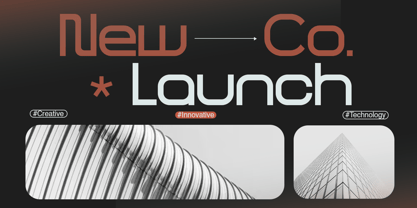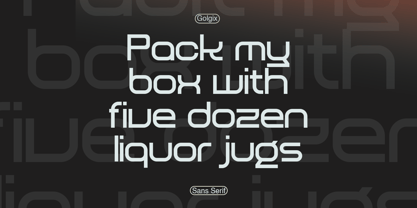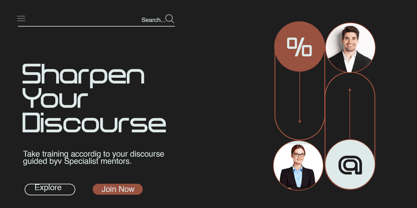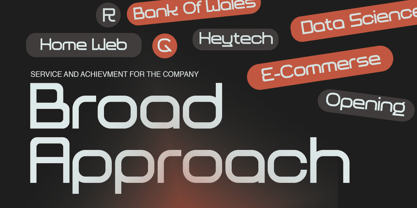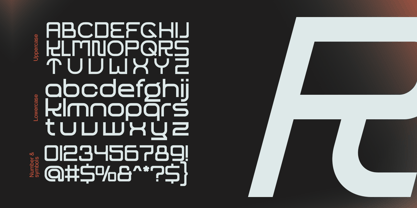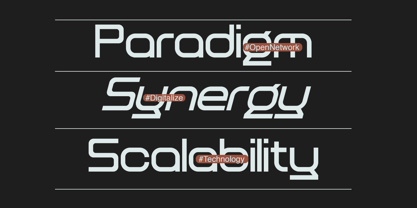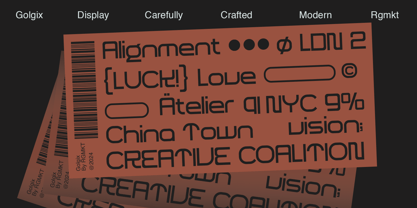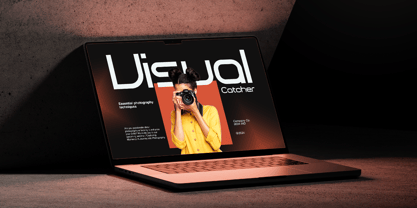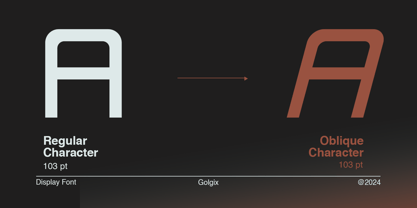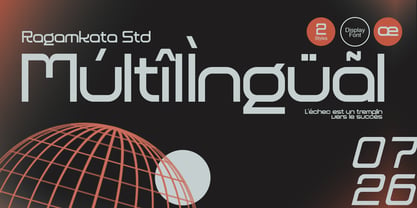
Golgix
by RagamKata
The Golgix Font Family was designed by Yogiswhara Dio Prakoso Riadi and published by RagamKata. Golgix contains 2 styles and family package options.
The image showcases a promotional graphic for a font named "Golqix," described as a "Modern Corporate Font." The design features the font name prominently in a futuristic and sleek style, with the text "Modern Corporate Font" below it. In the bottom left corner, there is a tagline that reads, "Join the digital revolution and reimagine your designs with our futuristic aesthetic." The background is a gradient of dark colors with a hint of red-orange at the edges, giving it a modern and dynamic feel. Golqix is suitable for: branding, web design, tech projects, print materials, sci-fi designs, marketing, UI design.
- Golgix Regular
- Golgix Oblique
- Multilingual Support
Designers: Yogiswhara Dio Prakoso Riadi